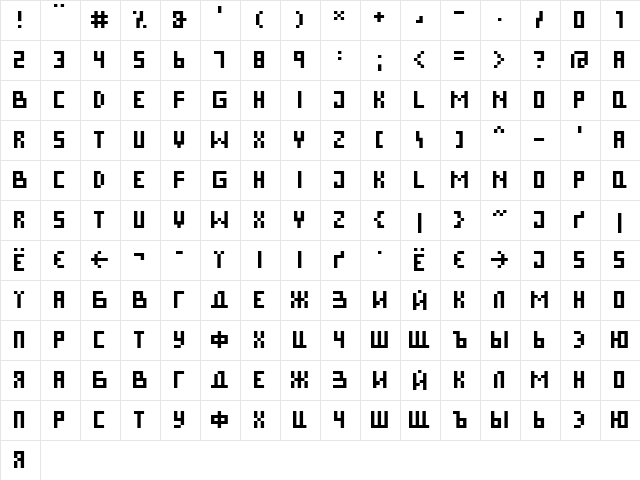
Pixel Cyr Normal
| Designer | Swamp Design & Dubina Nikolay |
Design Context for Pixel Cyr Typeface
Pixel Cyr celebrates the constraints of early digital type, turning pixel geometry into a distinctive and immediately recognisable style.
A natural choice for retro game titles, chiptune music branding, 8-bit UI, and digital nostalgia projects.